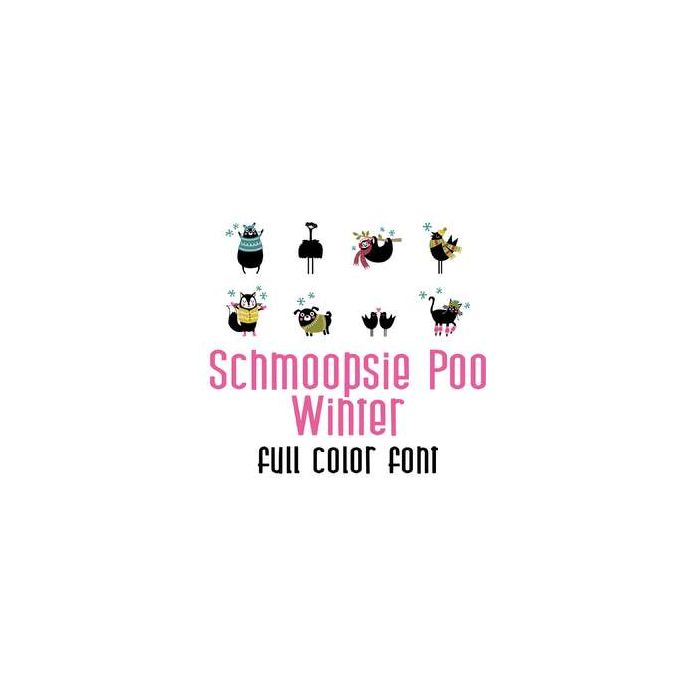
This adorable full color doodlebat font features cute animals ready for winter and love. Perfect for cards, crafts, gifts, decor, scrap book pages, planner stickers and more!